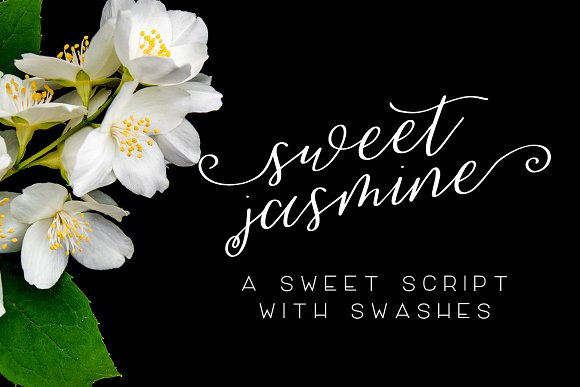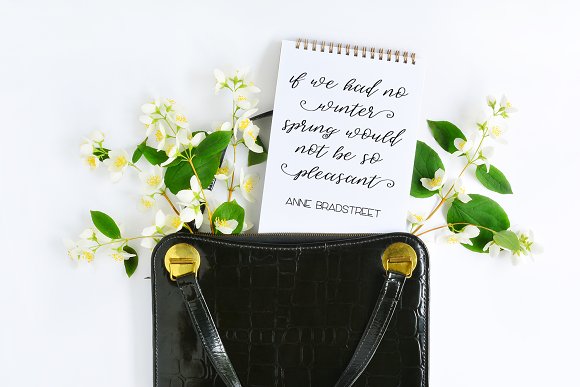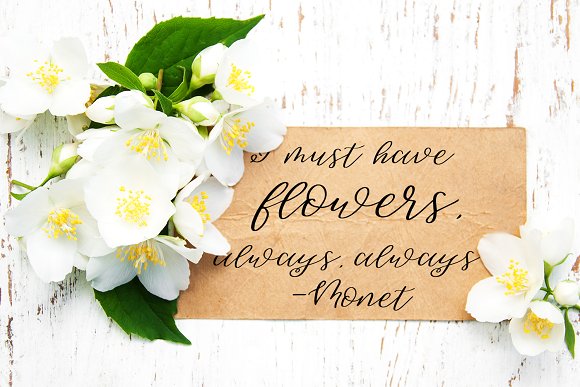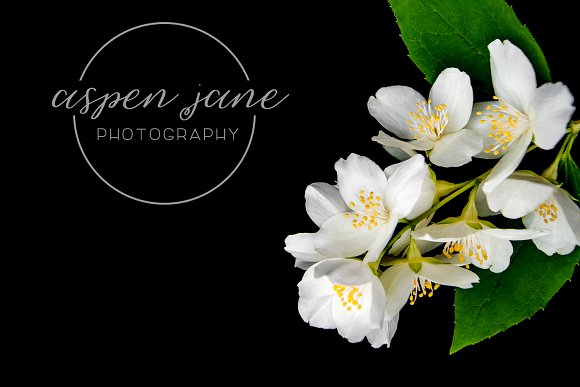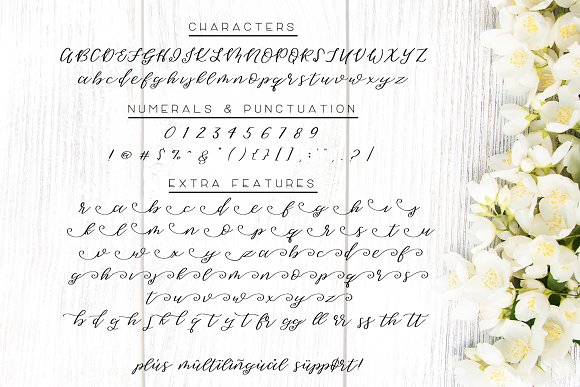
Sweet Jasmine Font
About Sweet Jasmine Font
Sweet Jasmine is a lovely, hand-lettered script with swashes, and some beautiful ligatures & alternates. Sweet Jasmine is perfect for wedding invitations, feminine branding, & more.